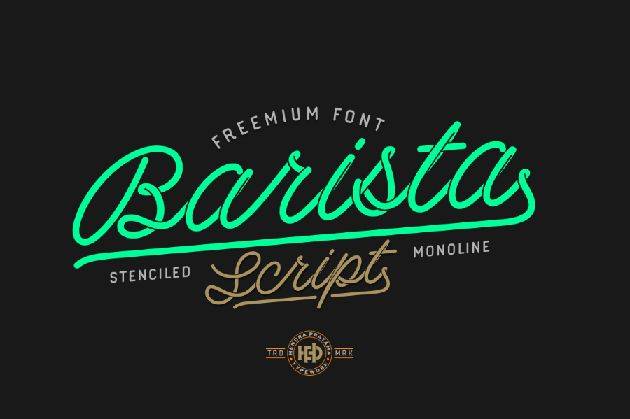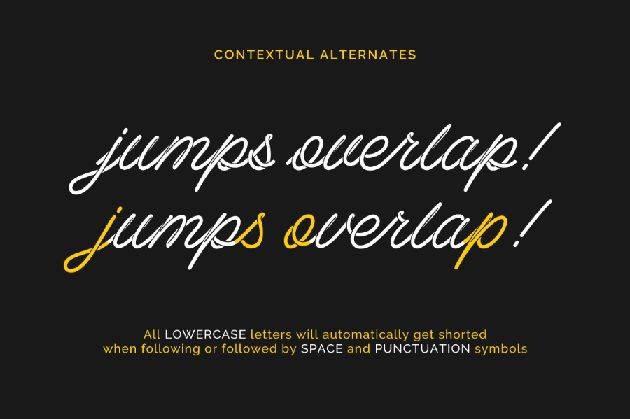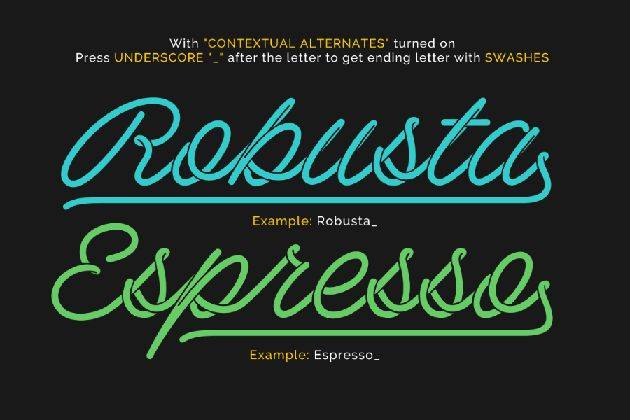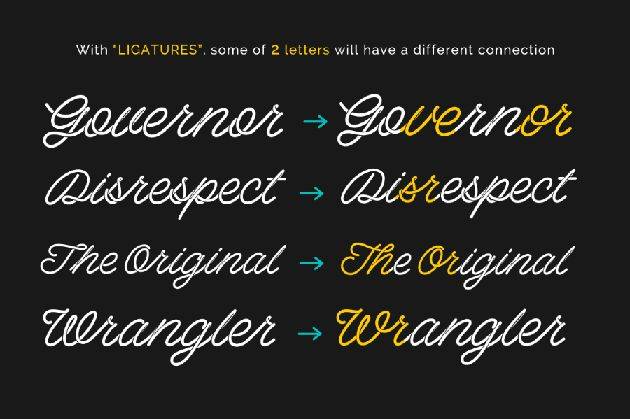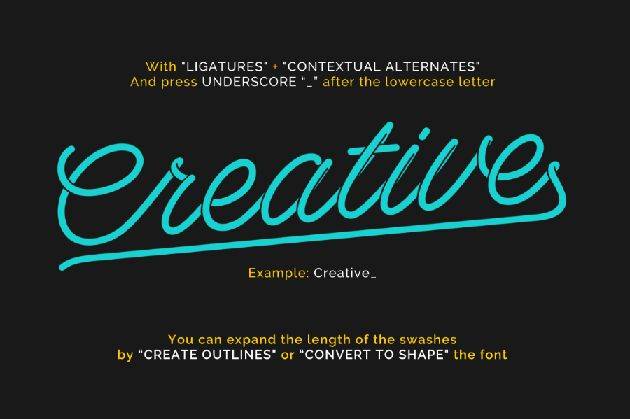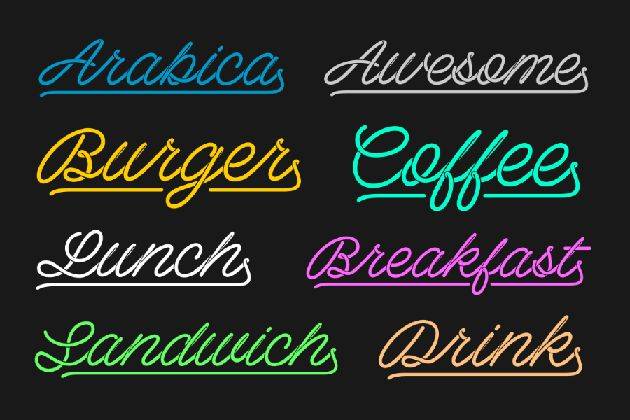
Barista Script is a graceful and elegant handwritten script font with smooth, flowing strokes and a light weight. Its connected letterforms and refined curves create a sophisticated yet approachable feel, making it ideal for branding, invitations, and stylish packaging that require a personal and artistic touch. This font works well to convey warmth and creativity, especially in contexts related to fashion, beauty, and artisanal products.
Barista Script Font
About Barista Script Font
| Font family | Barista Script Font |
| Designer | Hendra Pratama |